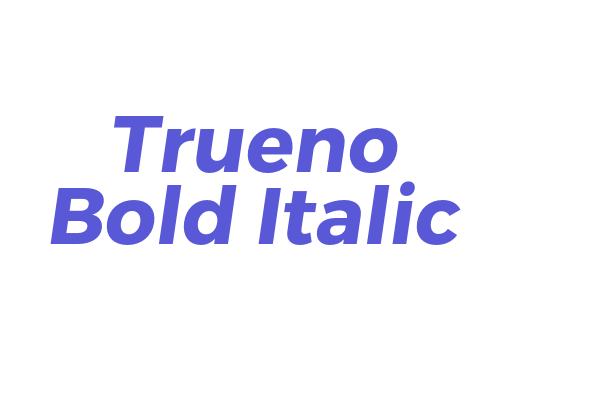
Trueno Bold Italic is a modern and sleek typeface designed by Julieta Ulanovsky. This font belongs to the Trueno family and falls under the categories of Basic and Sans Serif. Its bold italic style adds a touch of sophistication, making it ideal for headings, logos, and other design projects that require a bold statement.
Font Name: Trueno Bold Italic
Designer: Julieta Ulanovsky
Font Family: Trueno
Weight: Italic